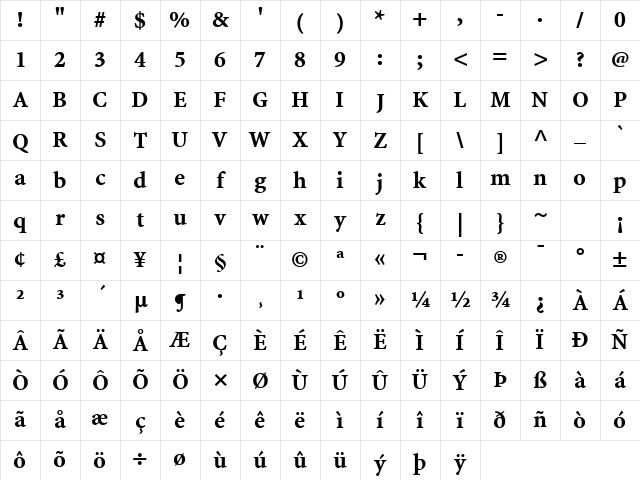
Minion Web Pro Bold
Design Context for Minion Web Pro
Minion Web Pro is a composed and adaptable typeface that performs quietly and consistently across a wide range of design contexts. Its bold stroke weight gives it real presence on the page.
Pro Tip: Use Minion Web Pro in both headline and body roles to test its range before committing to a single application.